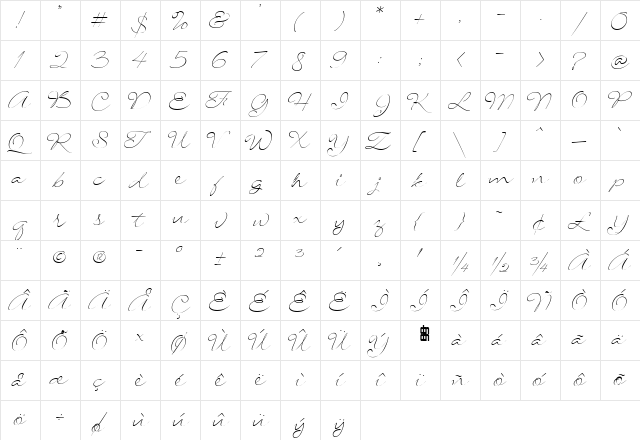
Signarita Louisse Thin
| Foundry | Rimando N. Nillo, Jr. |
| Designer | dondon nillo |
Design Context for Signarita Louisse Typeface
Signarita Louisse is a composed and adaptable typeface that performs quietly and consistently across a wide range of design contexts. The delicate stroke weight brings airiness and refinement to layouts.